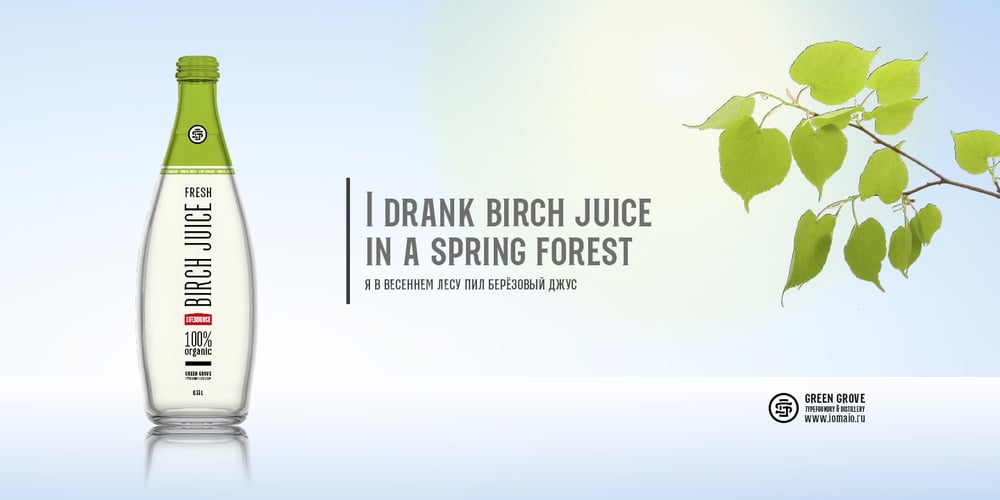
Green Grove Font Family was designed by Sergey Godovalov and published by True Story Letterworks. Green Grove contains 3 styles and family package options. Green Grove is a display typeface with low contrast and compressed proportions. It works good in headlines for posters, key visuals, corporate identity and package design.